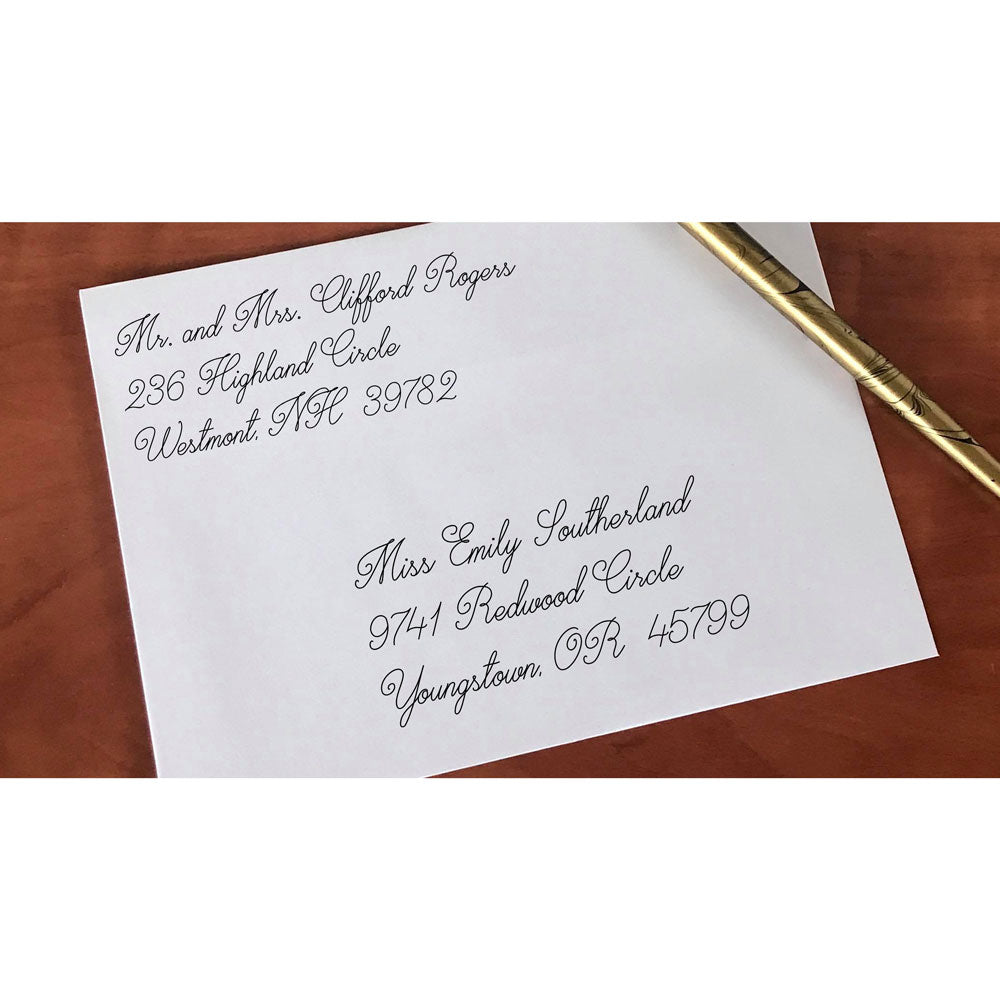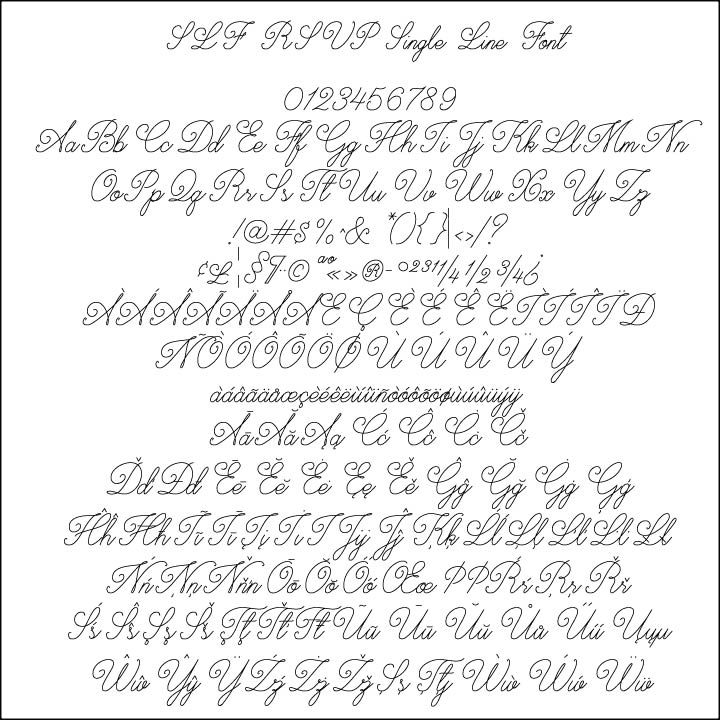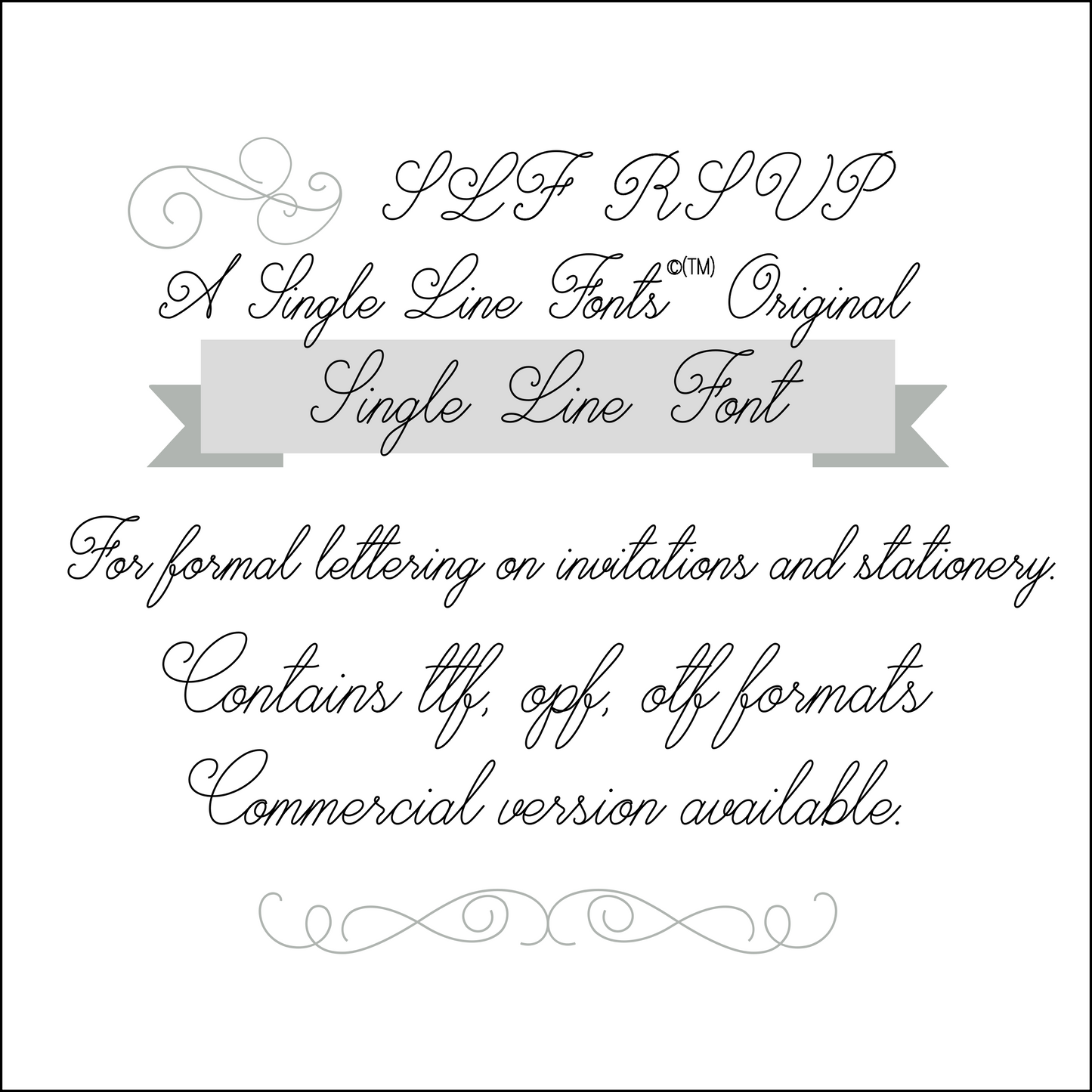
SLF RSVP – Formal Single Line Script for Wedding Stationery & Engraving
SLF RSVP is a formal single line script font designed for wedding invitations, stationery, and elegant event details. Its graceful letterforms are perfect for projects where you want a refined, upscale look while still keeping clean single-line output for engraving, scoring, and pen-style tools.
This monoline font includes a complete character set with letters, numbers, punctuation, symbols, and accented characters for multilingual support.
• Wedding invitations, place cards, and formal stationery
• Pen plotters and Foil Quill projects
• Labels, tags, and elegant personalized gifts